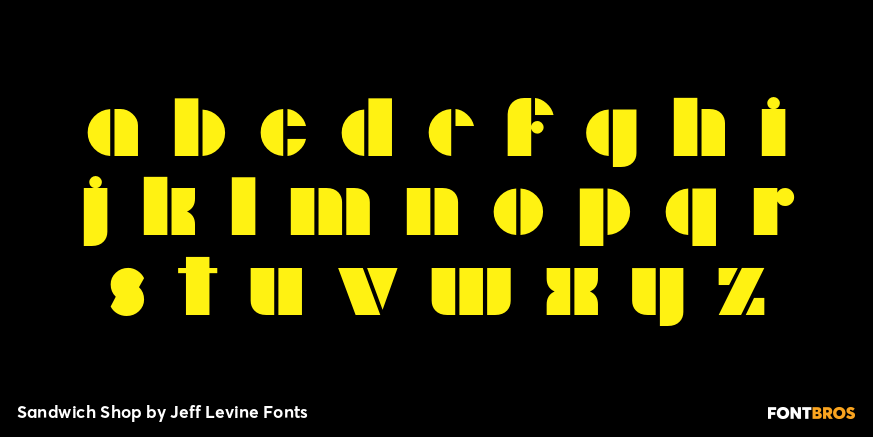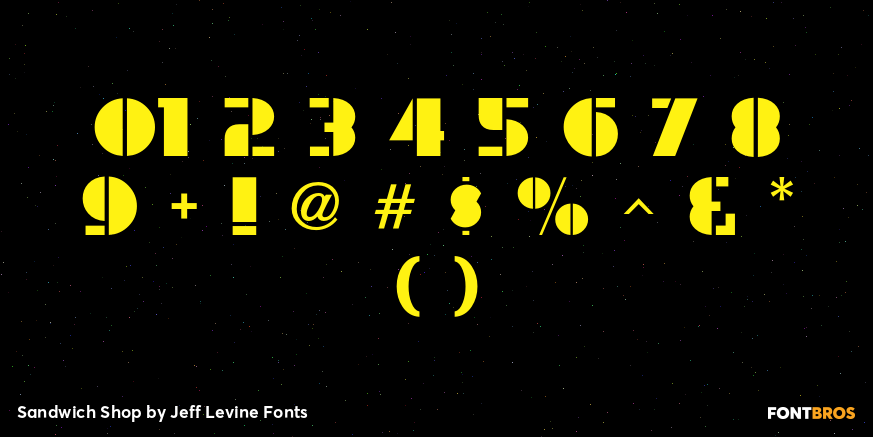
Sandwich Shop
A 1930s WPA (Works Progress Administration) poster promoting national parks depicts Native Americans overlooking the land with the tag line 'his hunting ground of yesterday'.
The hand lettering of that text is reminiscent of Futura Black and similar Art Deco stencil-influenced type designs, but is rendered in an oblique lower case with no capitals.
Re-drawn as Sandwich Shop JNL, the typeface is now available in both regular (vertical) and oblique versions.